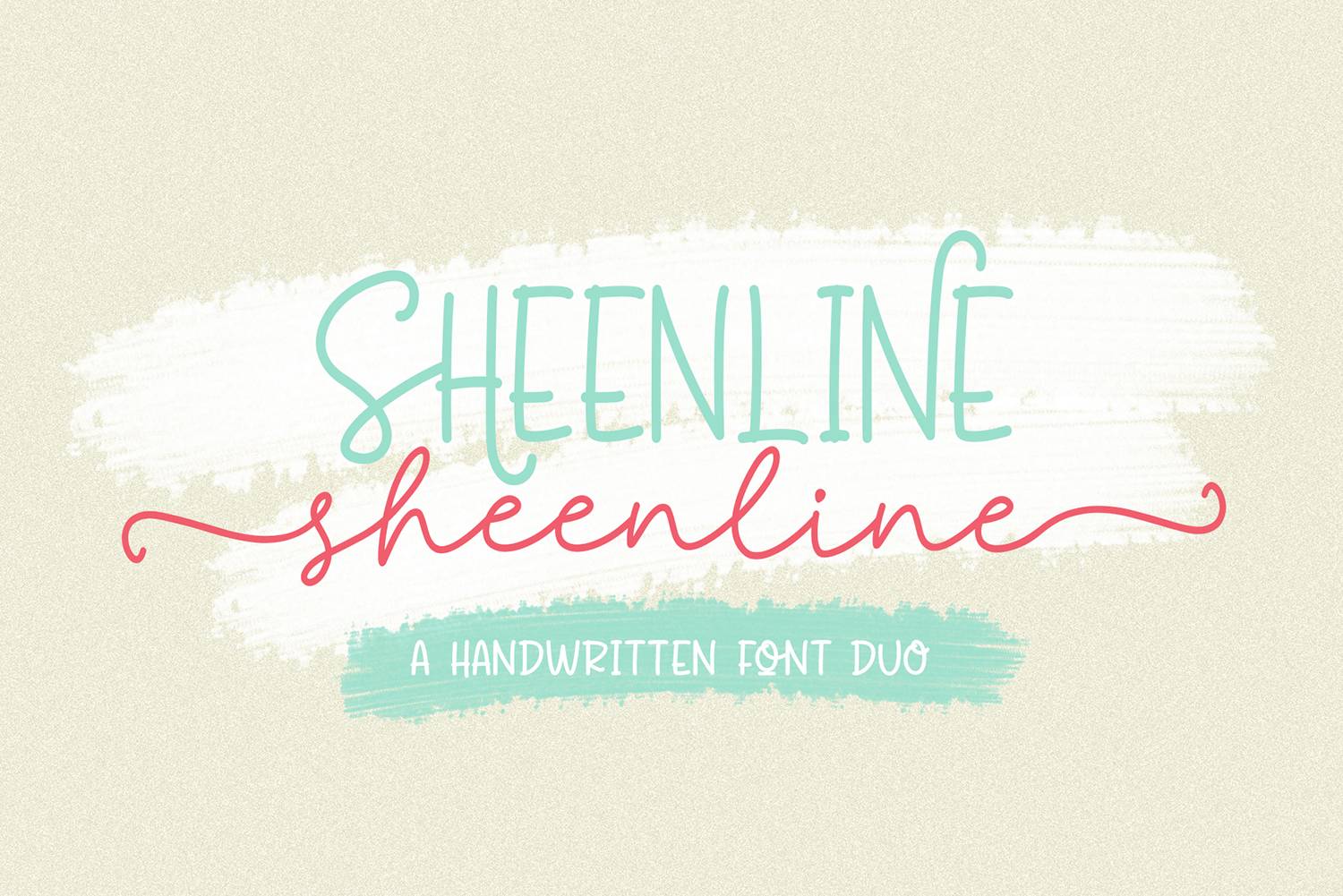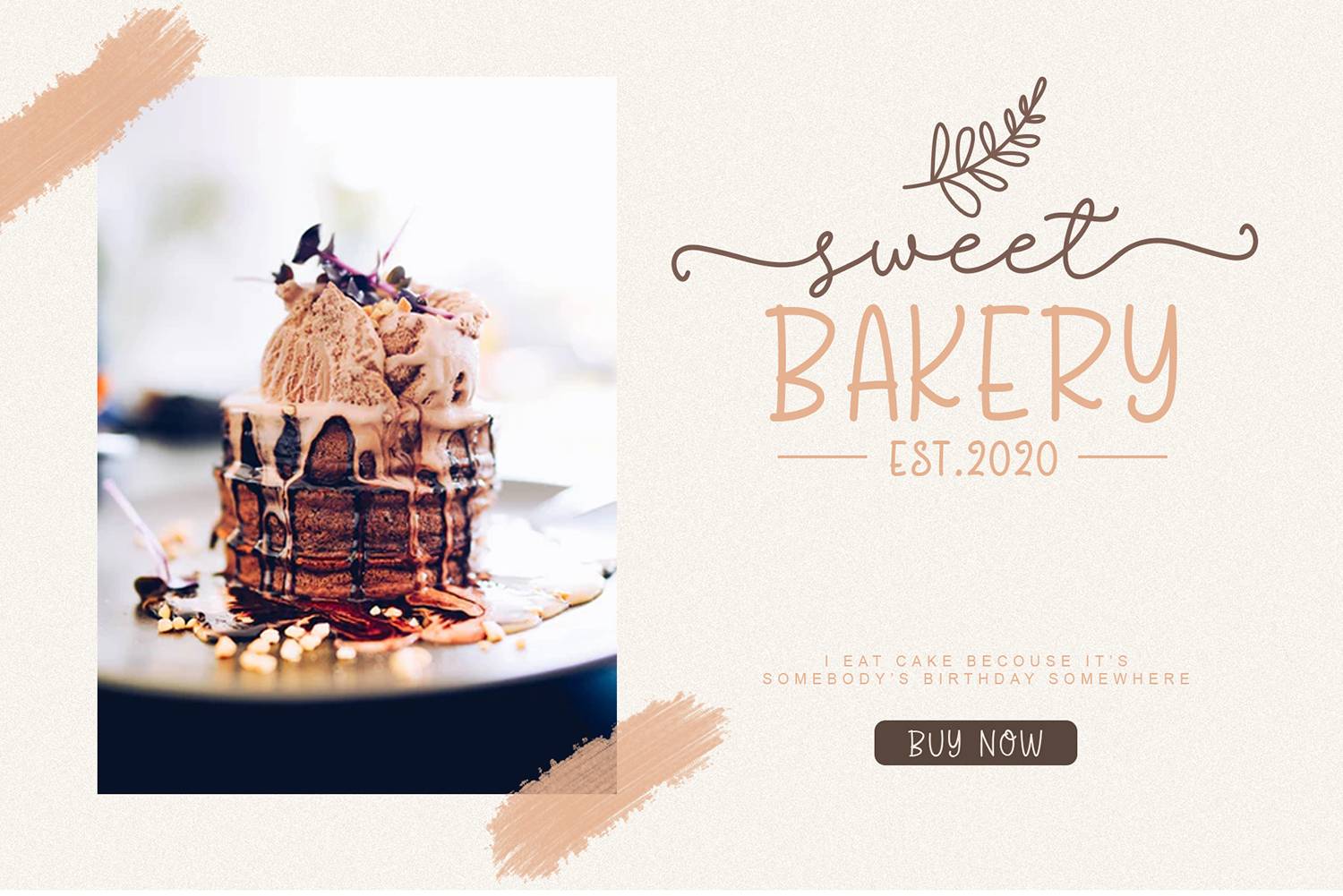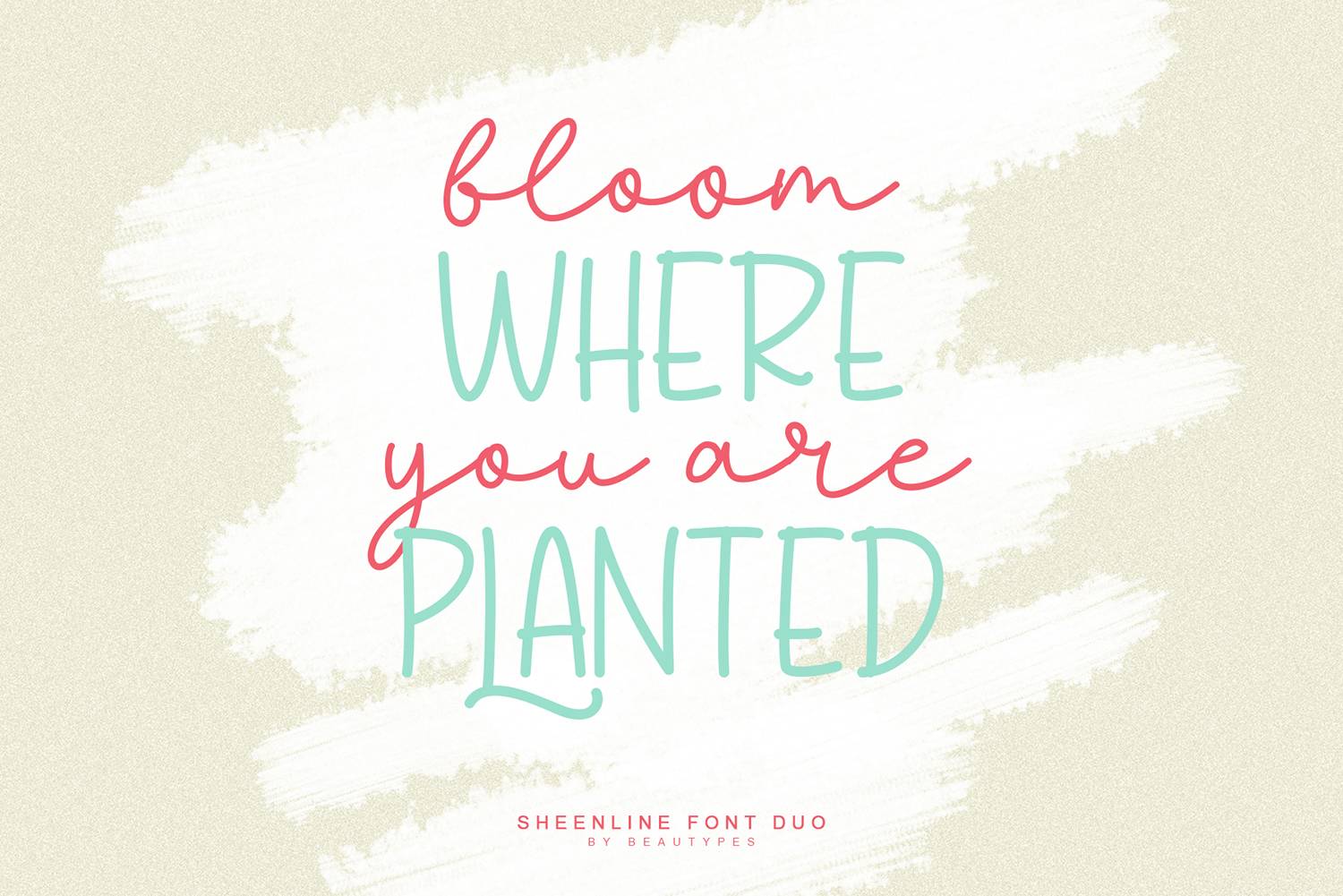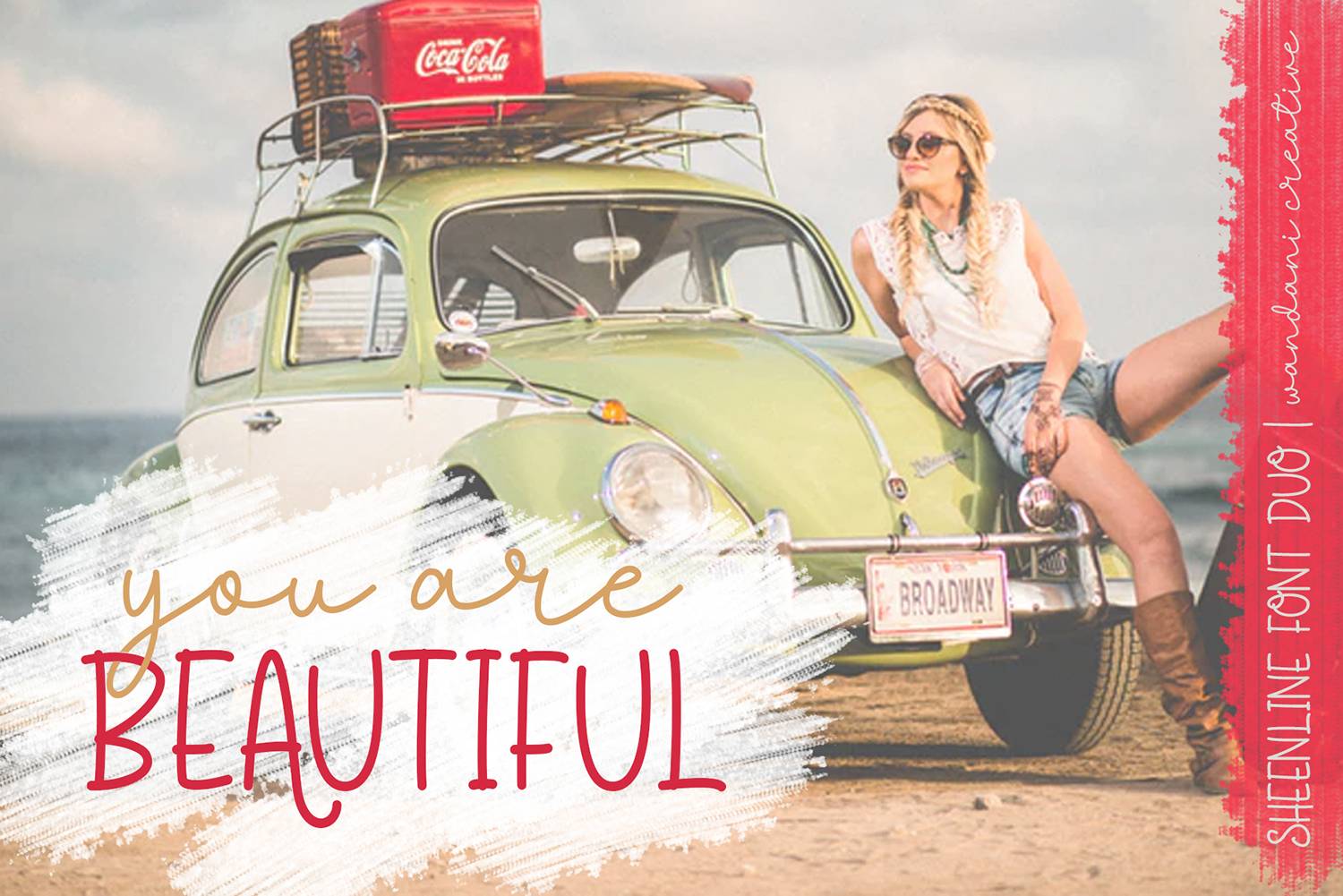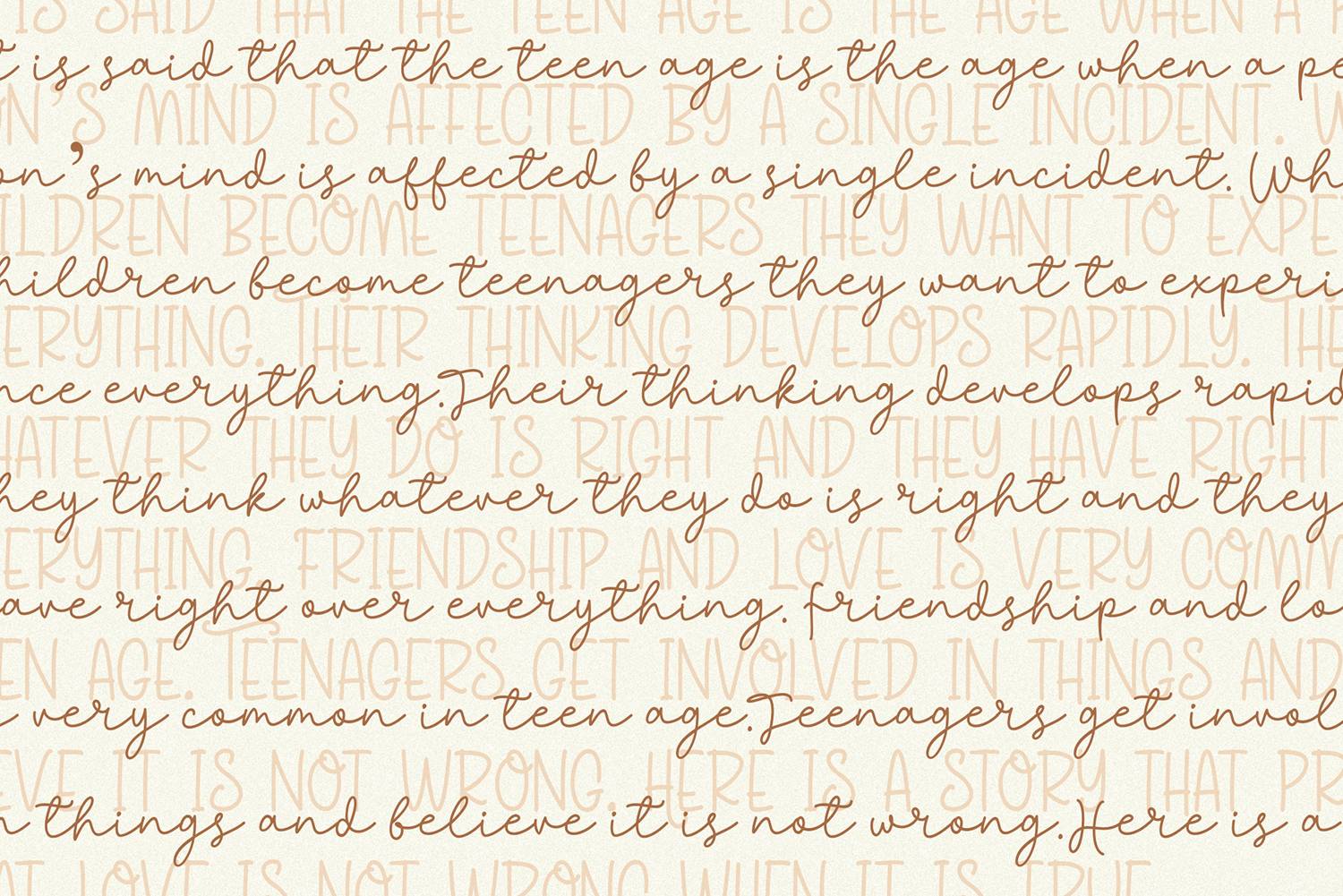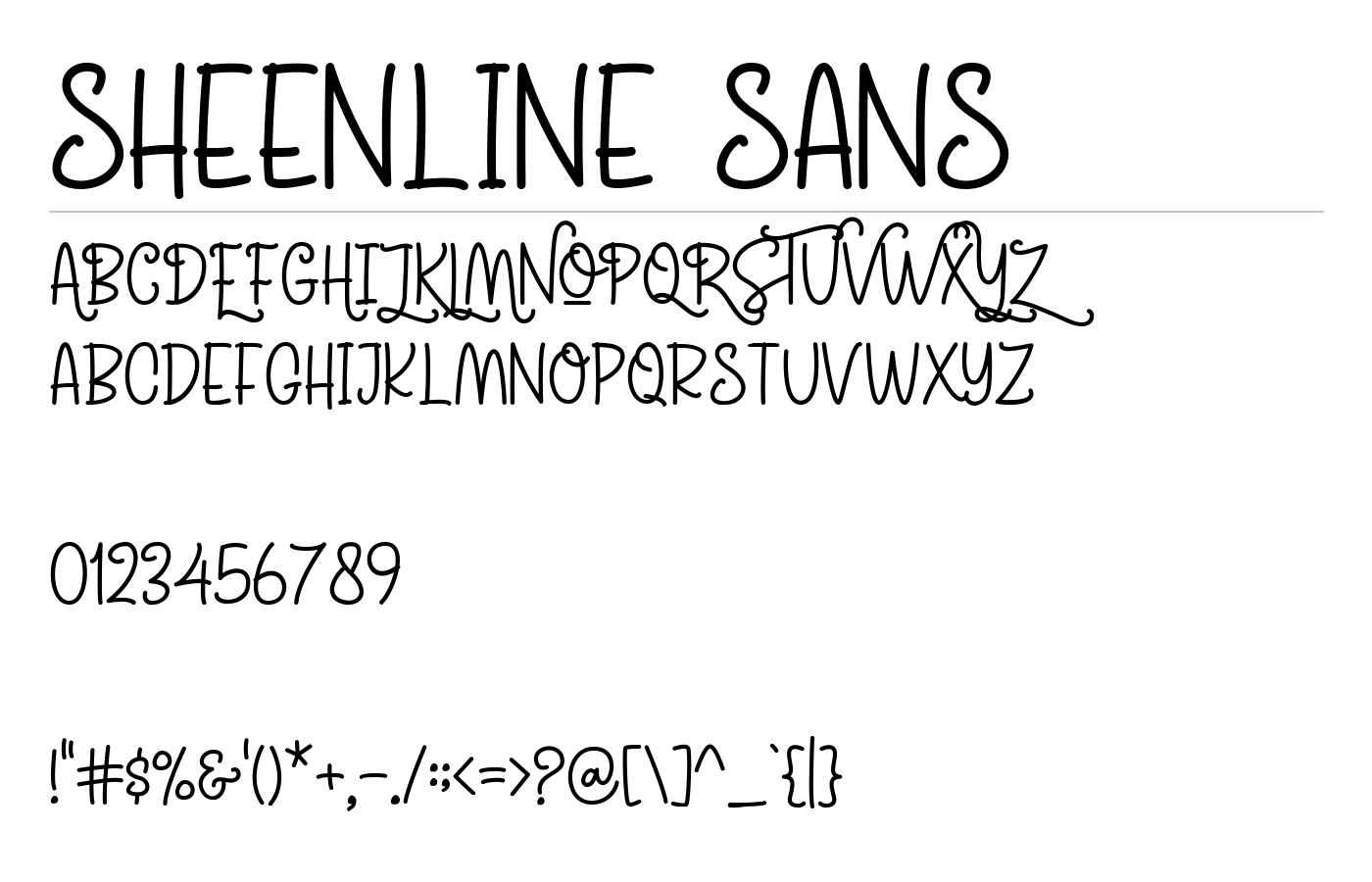
Sheenline Duo is a playful, hand-drawn sans serif font with a light weight and tall, narrow letterforms that give it a friendly and approachable vibe. Featuring whimsical uppercase characters with decorative swashes alongside a simpler alternate set, it adds a fun, creative flair ideal for casual branding, children’s media, or artistic projects. Its airy spacing and unique, quirky shapes make it perfect for eye-catching headlines and lighthearted design work.
Sheenline Duo Font
About Sheenline Duo Font